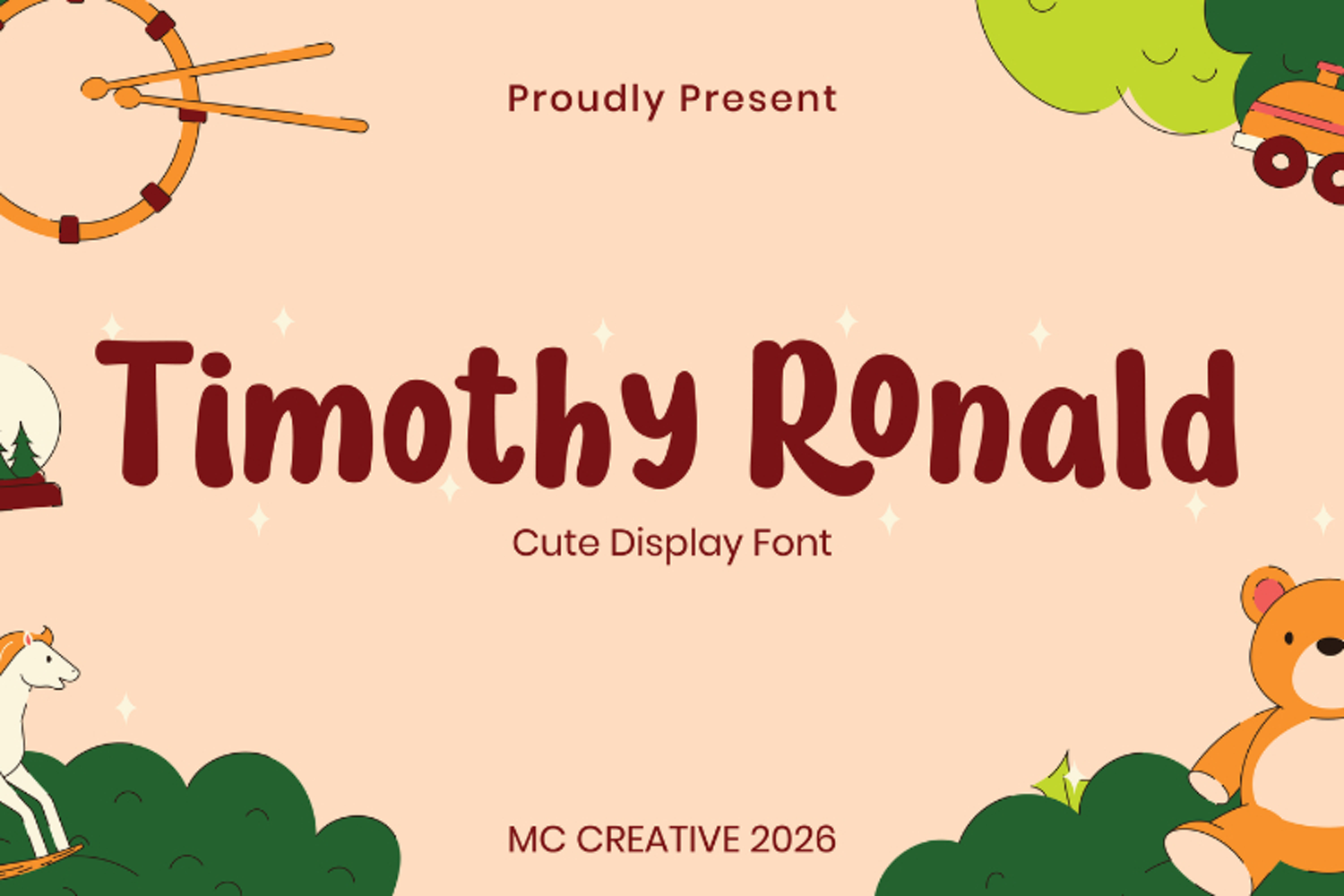
TIMOTHY RONALD
Timothy Ronald
Timothy Ronald is a charming display font that radiates playfulness and authenticity, making it an ideal choice for children's themed designs, especially when paired with vibrant colors. This versatile font is perfect for a variety of applications, including branding projects, logos, wedding designs, social media posts, advertisements, product packaging, labels, photography, watermarks, invitations, stationery, and any project that requires a handwritten touch.